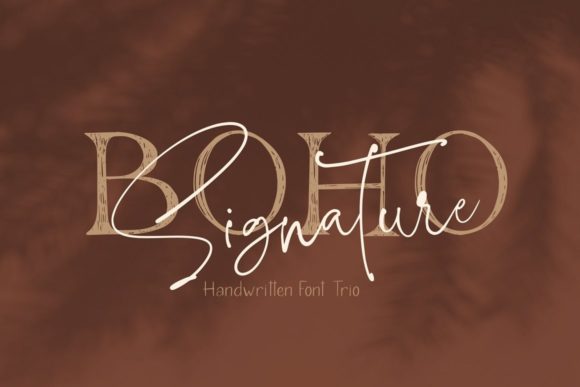
Introducing the Boho Signature Trio Font, a captivating fusion of script, sans serif, and serif fonts, meticulously crafted by Callmestasya to unleash your creative spirit. This exquisite trio offers an enchanting touch to your projects, leaving an indelible mark of elegance and sophistication.
Escape the ordinary and embrace the allure of Boho Signature Trio. Dive into a world of limitless possibilities, where your words dance with grace and charm. This font family is an ode to individuality, allowing you to express your unique style with confidence and flair.
With Boho Signature Trio, your designs will radiate a bohemian charm, capturing the essence of freedom and adventure. Let your creativity soar as you weave intricate patterns, craft heartfelt messages, or design logos that resonate with your brand's authentic voice.
Let your imagination run wild as you explore the depths of this versatile font family. Adorn your projects with enchanting script fonts, perfect for adding a personal touch to invitations, greeting cards, and social media posts. Make a bold statement with sans serif fonts, ideal for creating eye-catching headlines, posters, and website designs. Infuse your work with a timeless elegance using serif fonts, bringing a touch of sophistication to brochures, flyers, and book covers.
Boho Signature Trio is a font family that knows no bounds. Its PUA encoding grants you effortless access to a treasure trove of glyphs and swashes, empowering you to unleash your creativity without limits. Experiment with various combinations, mix and match fonts to create striking compositions, and let your designs speak volumes.